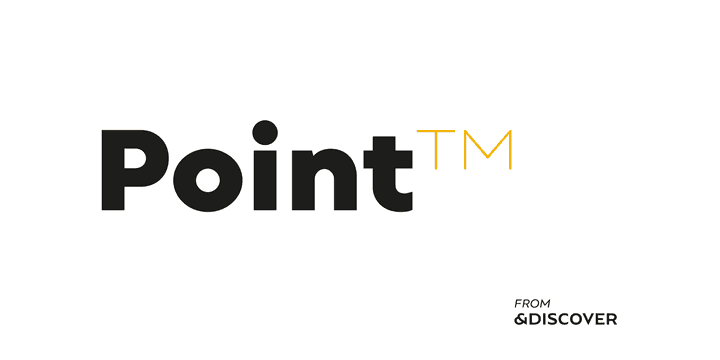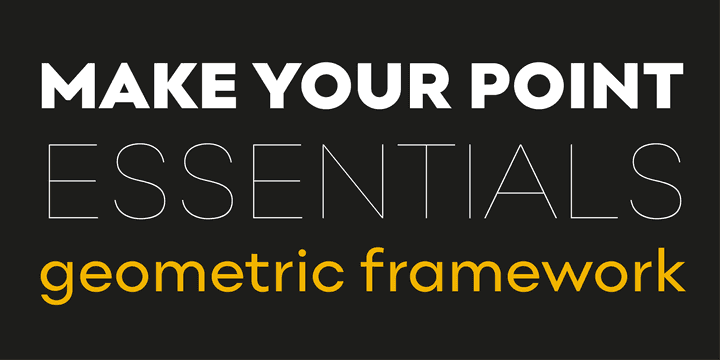
PointTM by Ndiscover is delighted to present Point!Designed and distributed by this agency, this is the top of the Geometric style font. Influenced by such timeless classics as Futura, Avant Garde, or Avenir styled with Modernism (perfect Geometric shapes), and considered design decisions, Point not only replicates the history of design but reflects everyday life of today as well.